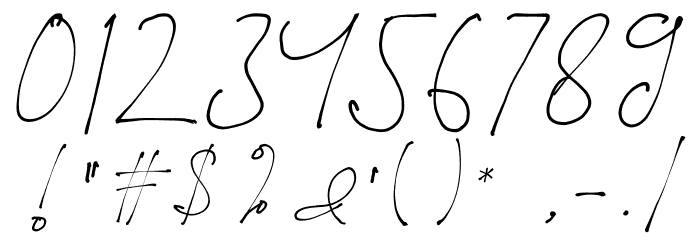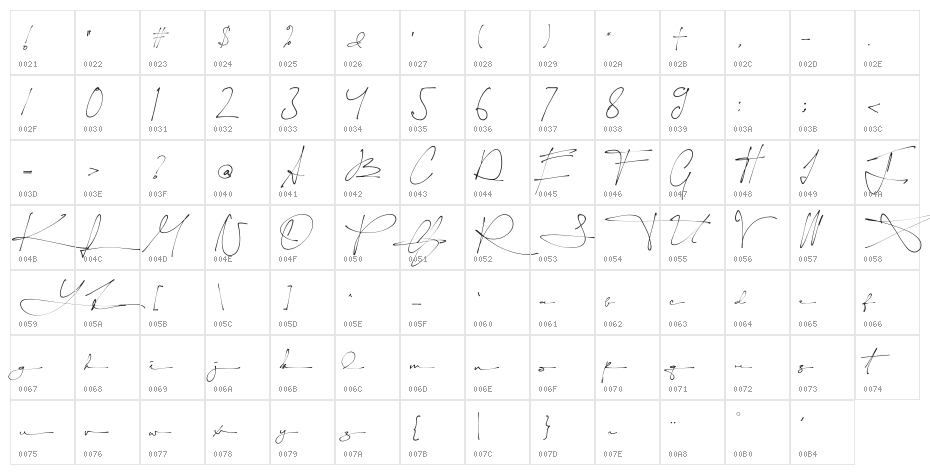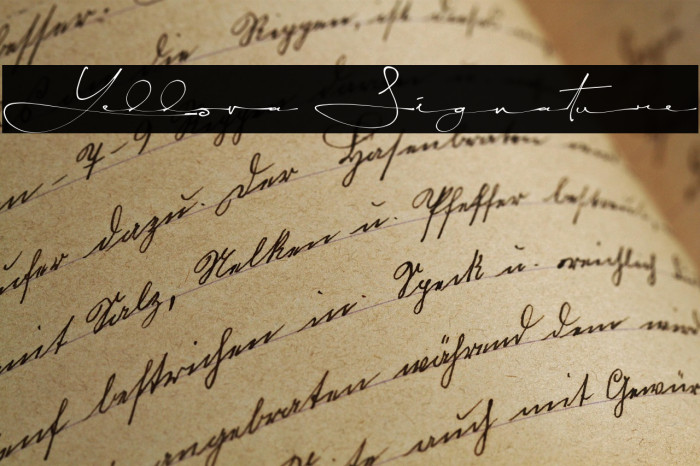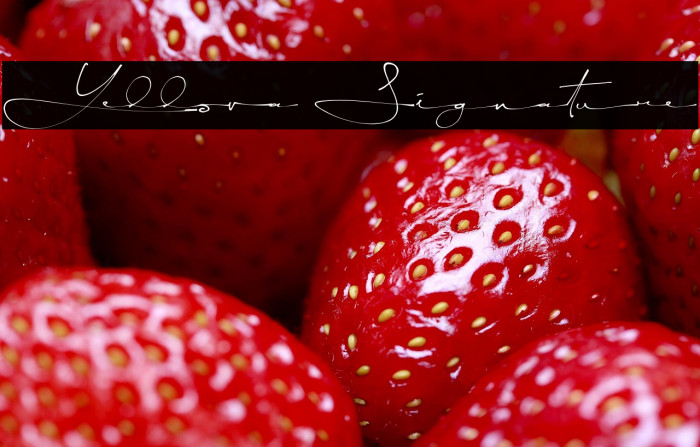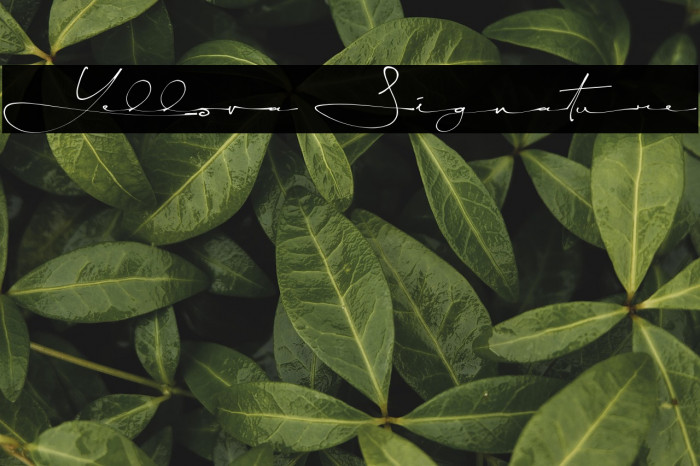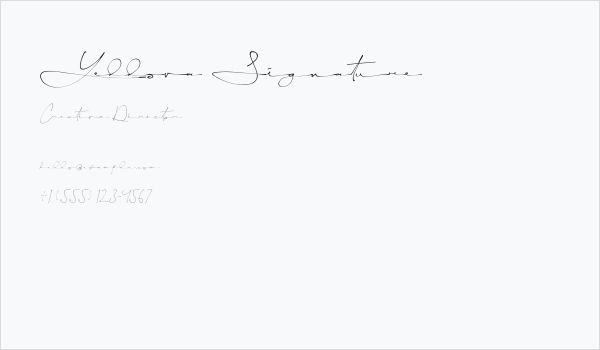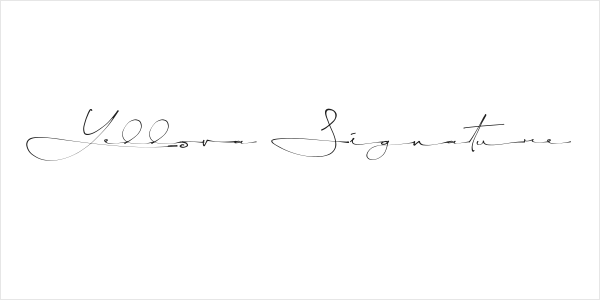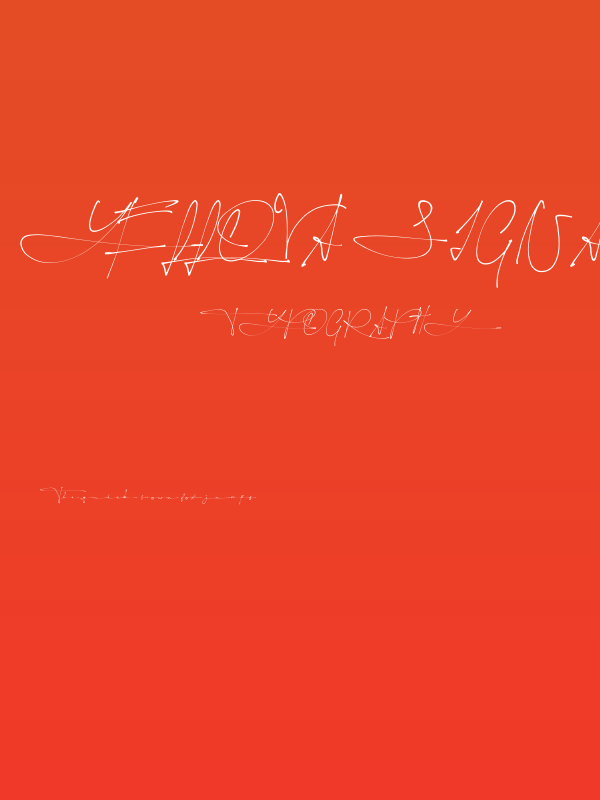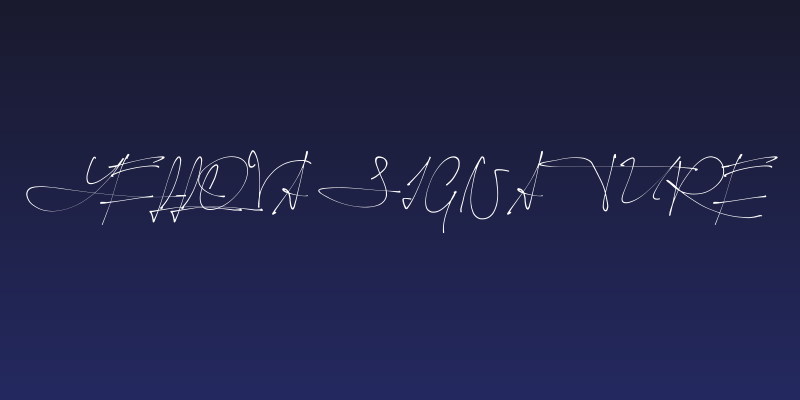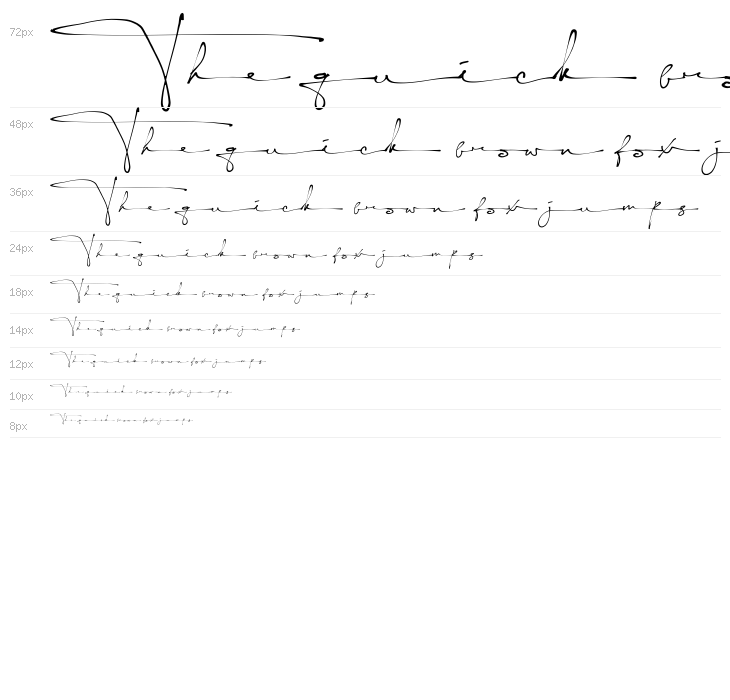
Yellova Signature Font
Yellova Signature Description
This font exudes a modern, handwritten style with a fluid and elegant script. The uppercase letters are characterized by their tall, slender forms and sweeping curves, giving them a sophisticated and artistic flair. The lowercase letters maintain a consistent flow, with smooth connections between characters, enhancing the cursive appearance. Numbers are distinct and maintain the same graceful style, ensuring readability while preserving the font's unique charm. Special characters are thoughtfully designed to match the overall aesthetic, making this font versatile for various creative applications.
| Proposed Projects | Ideal for wedding invitations, personal branding, logo design, and elegant stationery. |